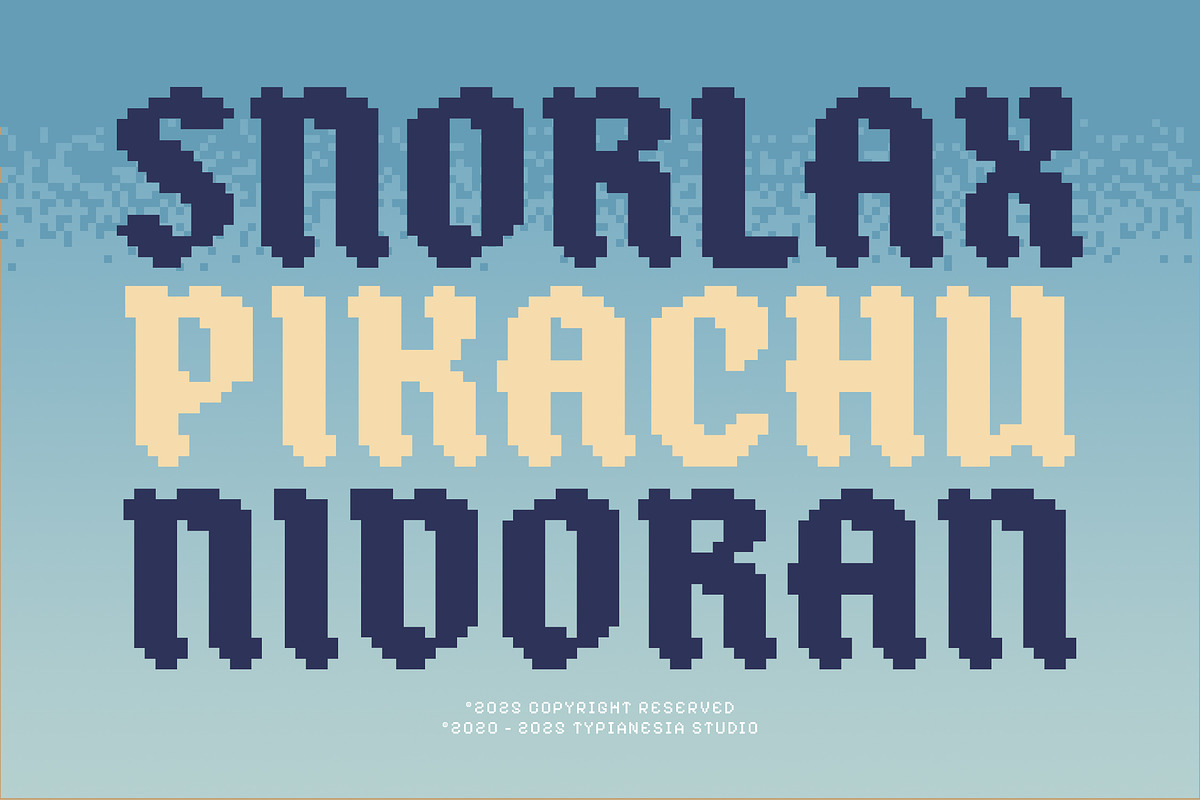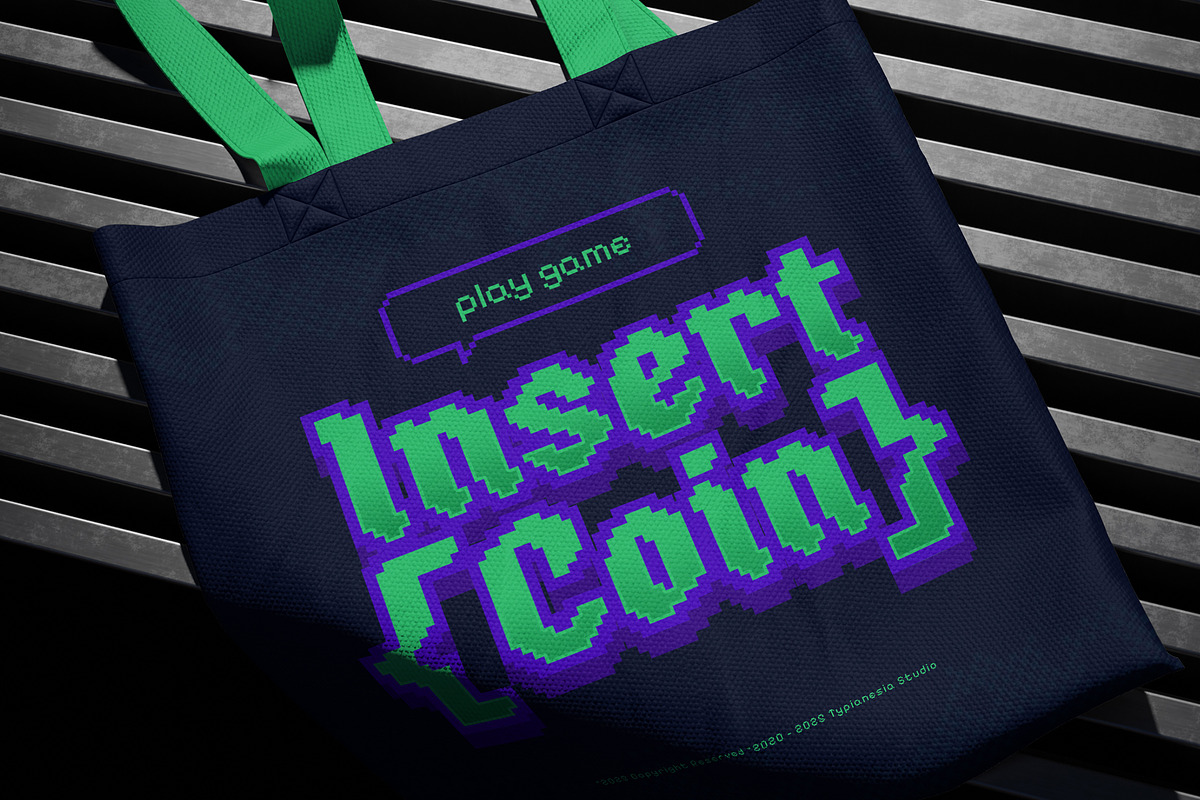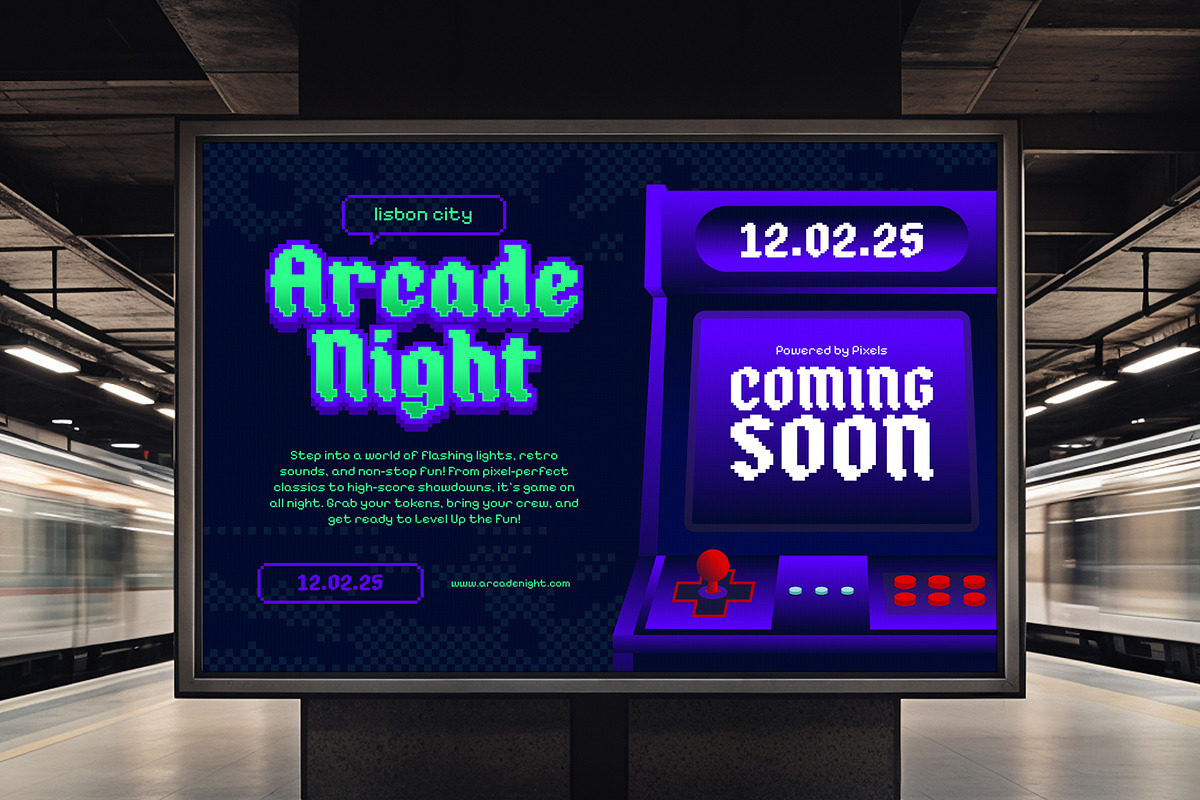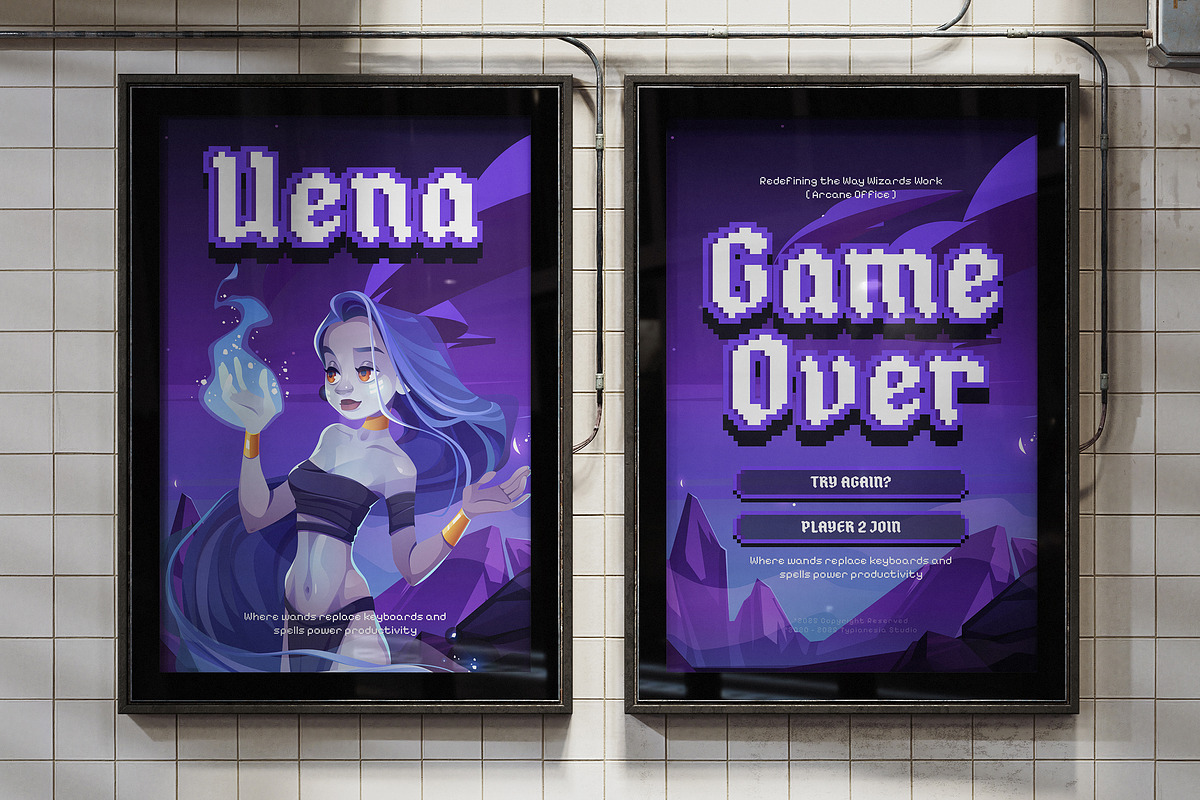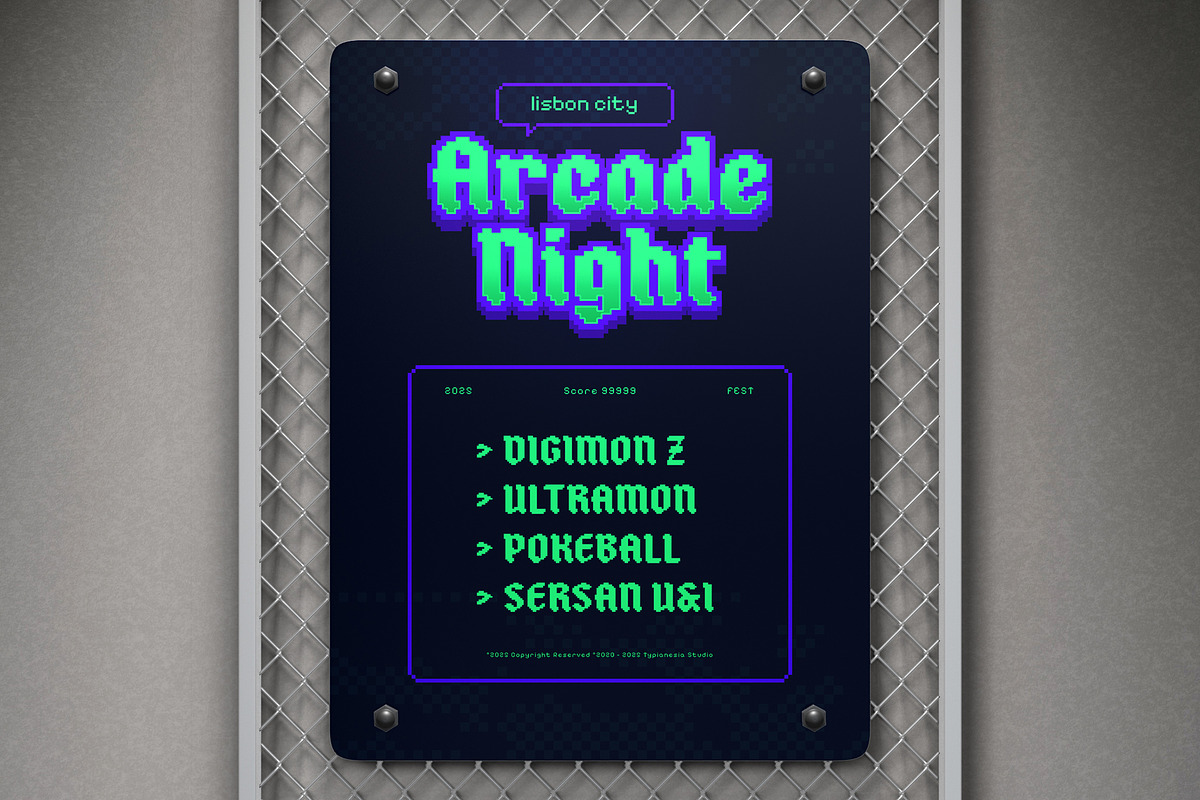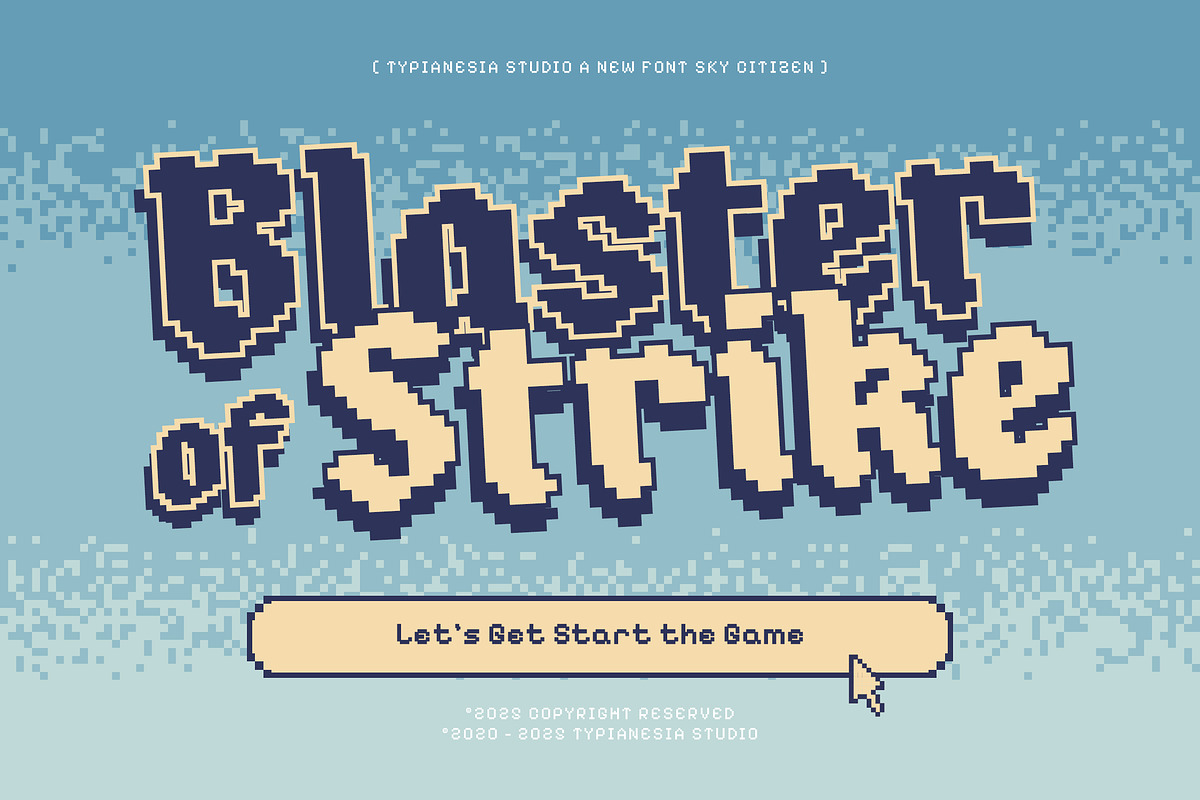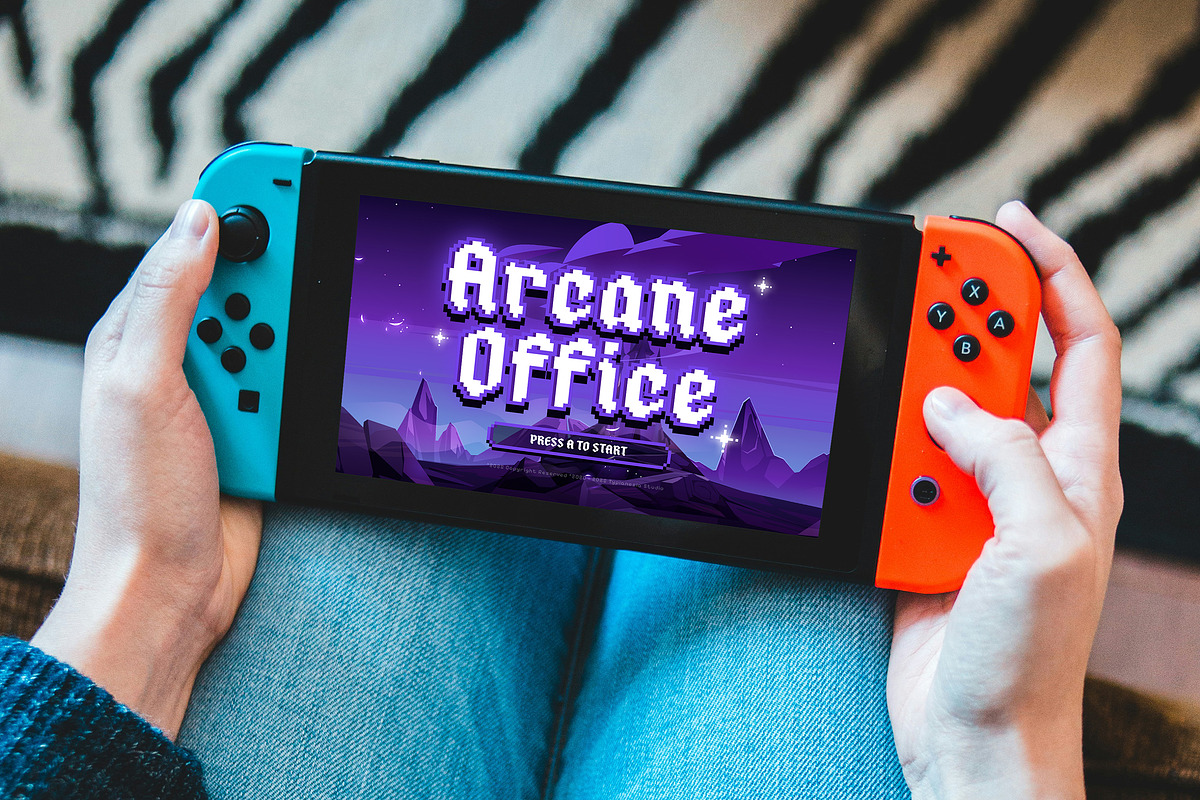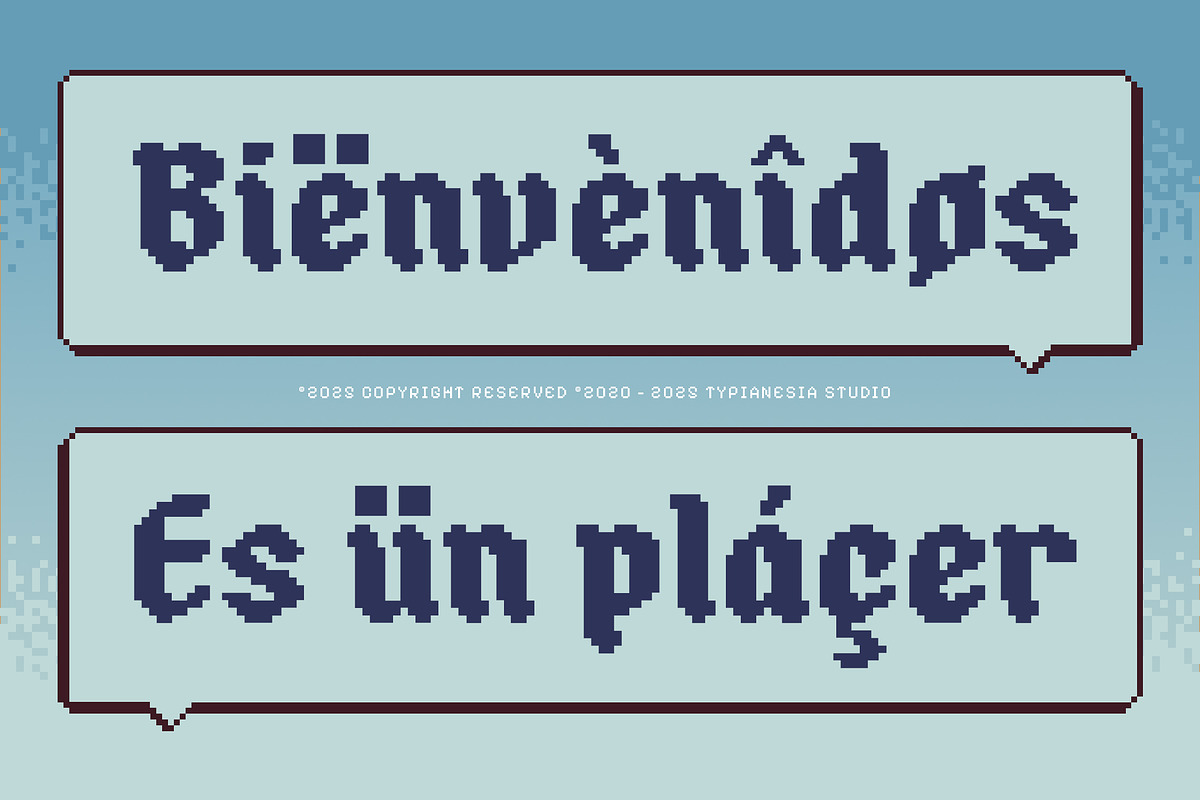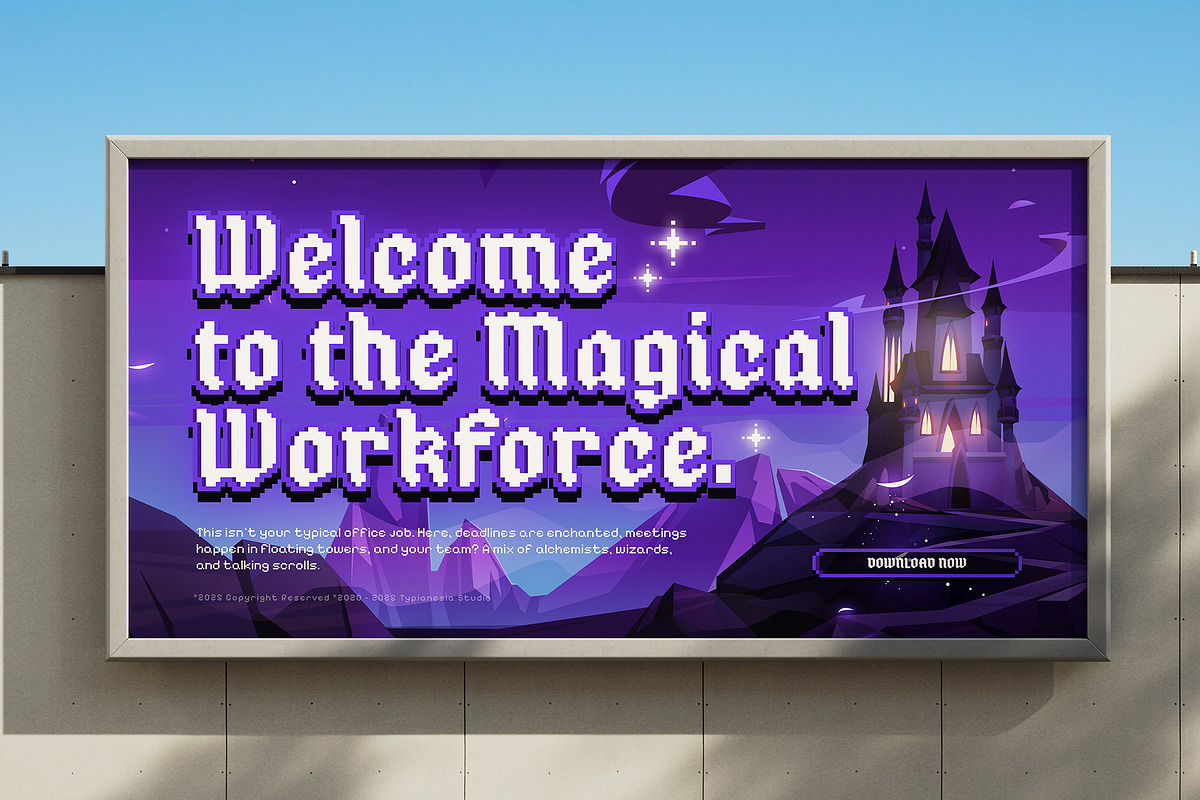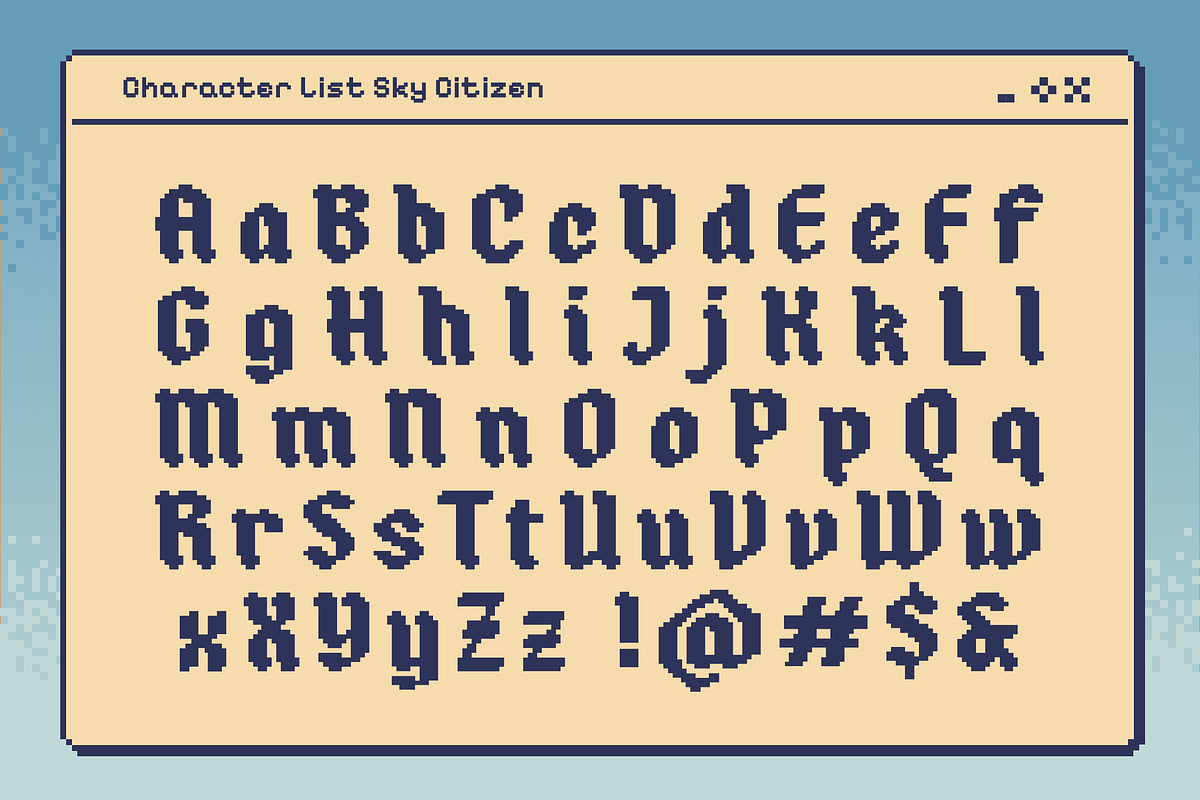
Sky Citizen - Pixelated Blackletter
Sky Citizen - Display Pixelated Blackletter Font - Modern Gothic Digital Game Designs.
Sky Citizen is a truly unique display pixelated blackletter font that masterfully blends historical gothic grandeur with a modern, digital edge. Each character is meticulously constructed from distinct blocks, creating a powerful all-caps typeface with a striking pixelated aesthetic. Ideal for gaming titles, streetwear branding, cyberpunk themes, modern gothic designs, poster, logo design, and impactful headlines, Sky Citizen delivers an edgy, futuristic, and undeniably bold statement, perfect for projects that demand a distinctive, techno-infused visual identity.